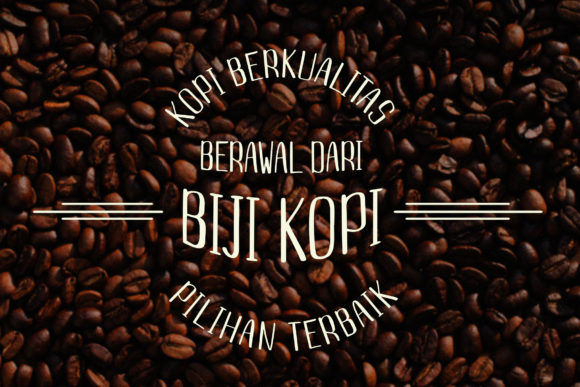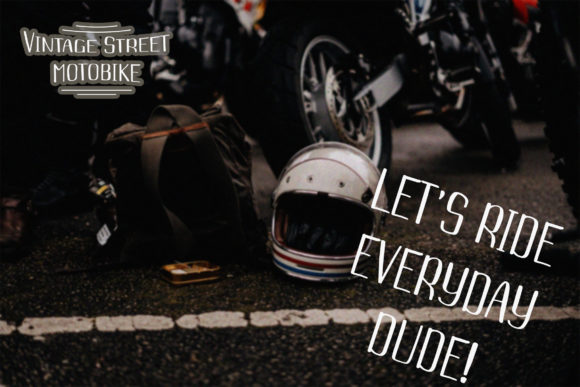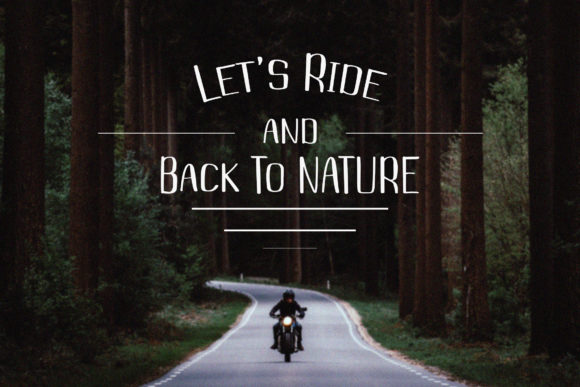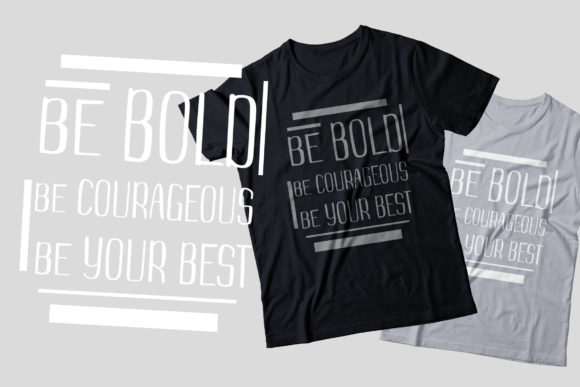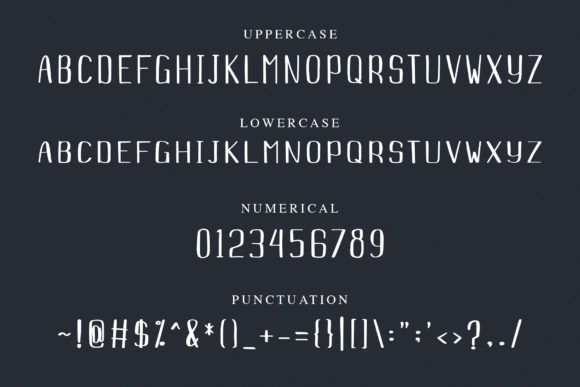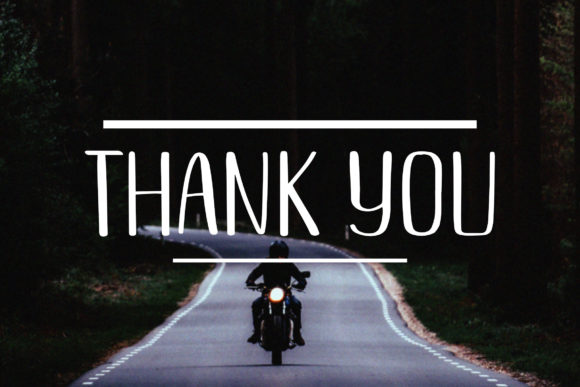
Introduction to Simphathic Font
Simphathic is a bold and authentic display font.
Use it to make your design projects stand out .
Key Features of Simphathic Font
Why Choose Simphathic Font?
Simphathic Font offers exceptional quality and versatility, making it a valuable addition to your design toolkit. Whether you’re creating for personal projects or commercial use, Simphathic Font delivers professional results.